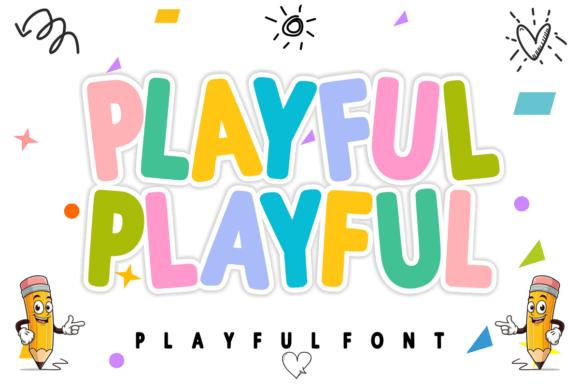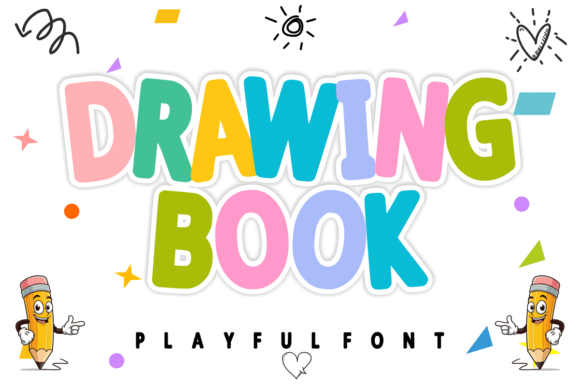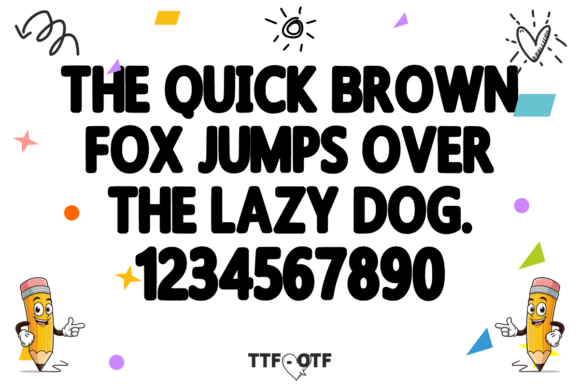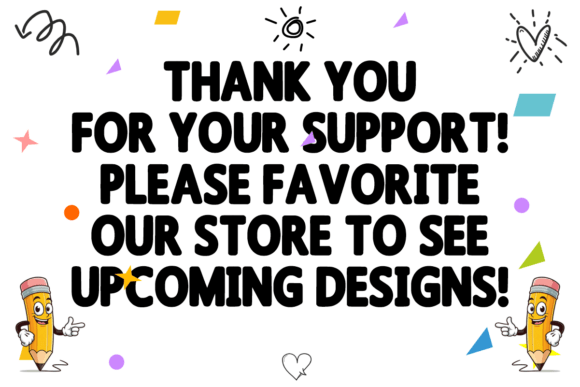
Unlock the Fun of Learning with ABCD Kids Font
Do you remember the excitement of learning the alphabet as a child? The thrill of tracing each letter with crayon, watching as the shapes came together to form a word? For many of us, that magic never fades. As creatives, we’re always on the lookout for ways to bring that same sense of wonder and joy to our projects. That’s where the ABCD Kids Font comes in – a playful, chunky display font designed to capture the essence of childhood.
With its friendly, rounded aesthetic, ABCD Kids Font is the perfect addition to any project that needs a burst of energy and whimsy. Whether you’re designing for a classroom, a birthday party, or a nursery, this font is sure to bring a smile to the faces of your audience. Its high legibility and versatility make it a valuable asset for designers, and its compatibility with cutting machines like Cricut and Silhouette makes it a must-have for DIY enthusiasts and professionals alike.
ABCD Kids Font Key Features
- Font Size: The font comes in a single size, which is designed to be large and clear, making it perfect for children’s educational materials and signage.
- Unique Characteristics: The font features a playful, hand-drawn design with bold lines and rounded shapes, making it perfect for creating engaging and child-friendly content.
- Character Set: The font includes a wide range of characters, including uppercase and lowercase letters, numbers, punctuation marks, and symbols, making it suitable for a variety of applications.
Designer Review: ABCD Kids Font
I’ve had the chance to work with the ABCD Kids Font, and I must say it’s a cute and playful font that’s perfect for kids’ content. ✨ The font is highly legible, making it great for body text, and the rounded edges give it a friendly and approachable feel. ✨ The uppercase letters are especially well-designed, with clean lines and a consistent style that’s easy to read. ✨
- Highly legible and easy to read
- Playful and friendly design
- Cute uppercase letters
- Consistent style throughout
However, there are some limitations to the font that should be noted. ⚠️ The lowercase letters can sometimes be a bit messy, with some of the strokes being a bit uneven. ⚠️ Additionally, the font may not be as suitable for formal or professional content, as it has a very childlike feel to it. ⚠️
The ABCD Kids Font is a great choice for kids’ content, educational materials, or any project that needs a playful and friendly tone. While it may not be the best choice for formal or professional content, it’s a great option for those looking for a cute and easy-to-read font.
The ABCD Kids font is ideal for creating educational materials, children’s books, and other content for kids.
To get the most out of the font, use it in conjunction with colorful graphics and illustrations.
Experiment with different font sizes and styles to create visual interest and emphasize important information.